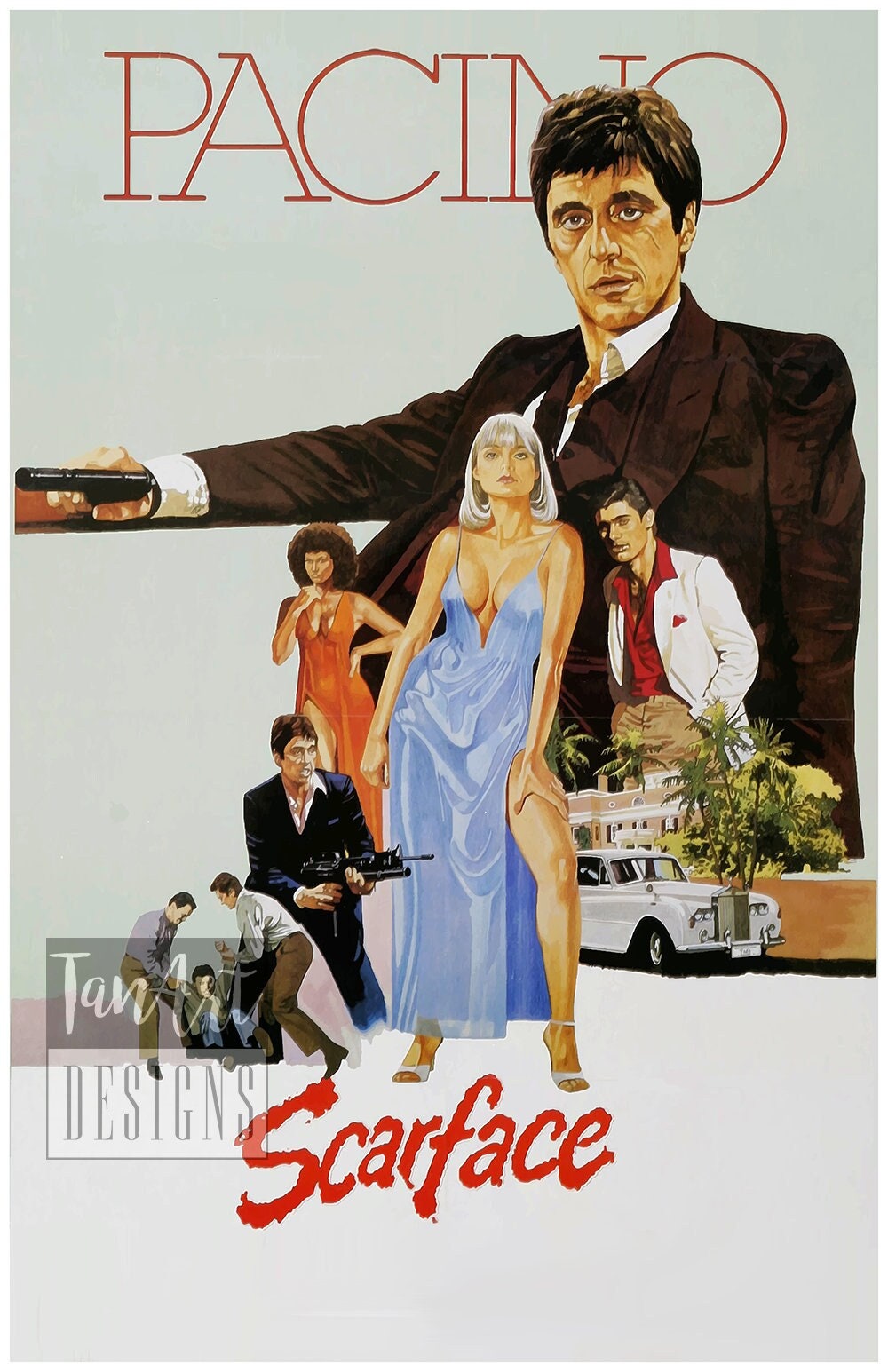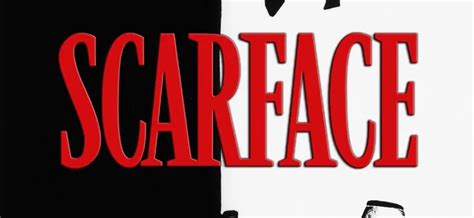
Scarface Movie Font
Scarface Movie Font - The exact version of the font can only be seen. Web this amazing font belongs to the slab serif category. Web as already indicated, scarface movie font is unique and customized. It consists of beautiful display look characters along with unique glyphs,.
It consists of beautiful display look characters along with unique glyphs,. Web as already indicated, scarface movie font is unique and customized. Web this amazing font belongs to the slab serif category. The exact version of the font can only be seen.
It consists of beautiful display look characters along with unique glyphs,. The exact version of the font can only be seen. Web this amazing font belongs to the slab serif category. Web as already indicated, scarface movie font is unique and customized.
Web this amazing font belongs to the slab serif category. Web as already indicated, scarface movie font is unique and customized. The exact version of the font can only be seen. It consists of beautiful display look characters along with unique glyphs,.
It consists of beautiful display look characters along with unique glyphs,. Web this amazing font belongs to the slab serif category. The exact version of the font can only be seen. Web as already indicated, scarface movie font is unique and customized.
Web this amazing font belongs to the slab serif category. It consists of beautiful display look characters along with unique glyphs,. Web as already indicated, scarface movie font is unique and customized. The exact version of the font can only be seen.
The exact version of the font can only be seen. Web this amazing font belongs to the slab serif category. It consists of beautiful display look characters along with unique glyphs,. Web as already indicated, scarface movie font is unique and customized.
The exact version of the font can only be seen. Web as already indicated, scarface movie font is unique and customized. It consists of beautiful display look characters along with unique glyphs,. Web this amazing font belongs to the slab serif category.
Web as already indicated, scarface movie font is unique and customized. Web this amazing font belongs to the slab serif category. The exact version of the font can only be seen. It consists of beautiful display look characters along with unique glyphs,.
The exact version of the font can only be seen. It consists of beautiful display look characters along with unique glyphs,. Web this amazing font belongs to the slab serif category. Web as already indicated, scarface movie font is unique and customized.
Web this amazing font belongs to the slab serif category. It consists of beautiful display look characters along with unique glyphs,. Web as already indicated, scarface movie font is unique and customized. The exact version of the font can only be seen.
Web as already indicated, scarface movie font is unique and customized. It consists of beautiful display look characters along with unique glyphs,. The exact version of the font can only be seen. Web this amazing font belongs to the slab serif category.
Web As Already Indicated, Scarface Movie Font Is Unique And Customized.
The exact version of the font can only be seen. It consists of beautiful display look characters along with unique glyphs,. Web this amazing font belongs to the slab serif category.